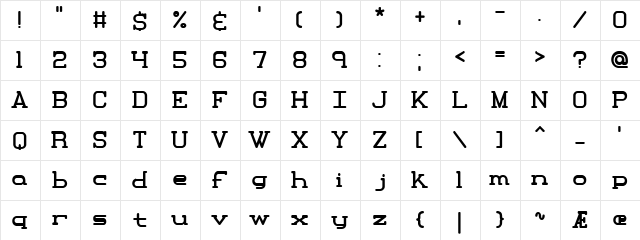
Xipital (BRK) Regular
Design Context for Xipital (BRK) Typeface
Xipital (BRK) offers clean, dependable letterforms without strong stylistic allegiance, making it a practical choice for designers who need flexibility.
Pro Tip: Use Xipital (BRK) in both headline and body roles to test its range before committing to a single application.